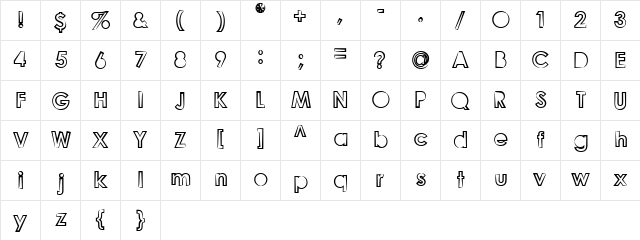
Goonberry Light Goonberry Light
| Foundry | 酭ily Finta |
| Designer | 酭ily Finta |
Design Context for Goonberry Light Typeface
Goonberry Light is a composed and adaptable typeface that performs quietly and consistently across a wide range of design contexts. Its slender proportions lend an understated elegance to any composition.